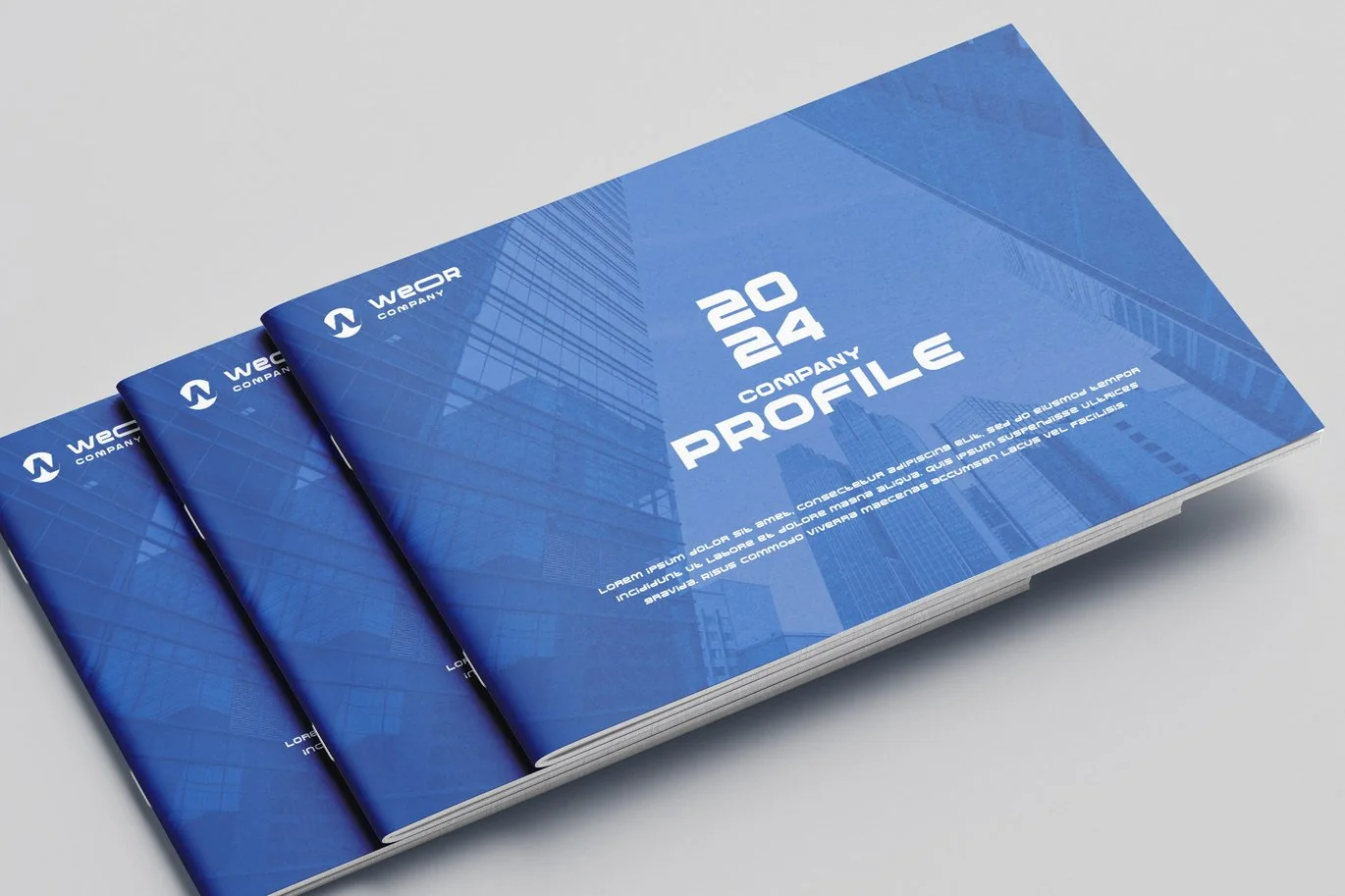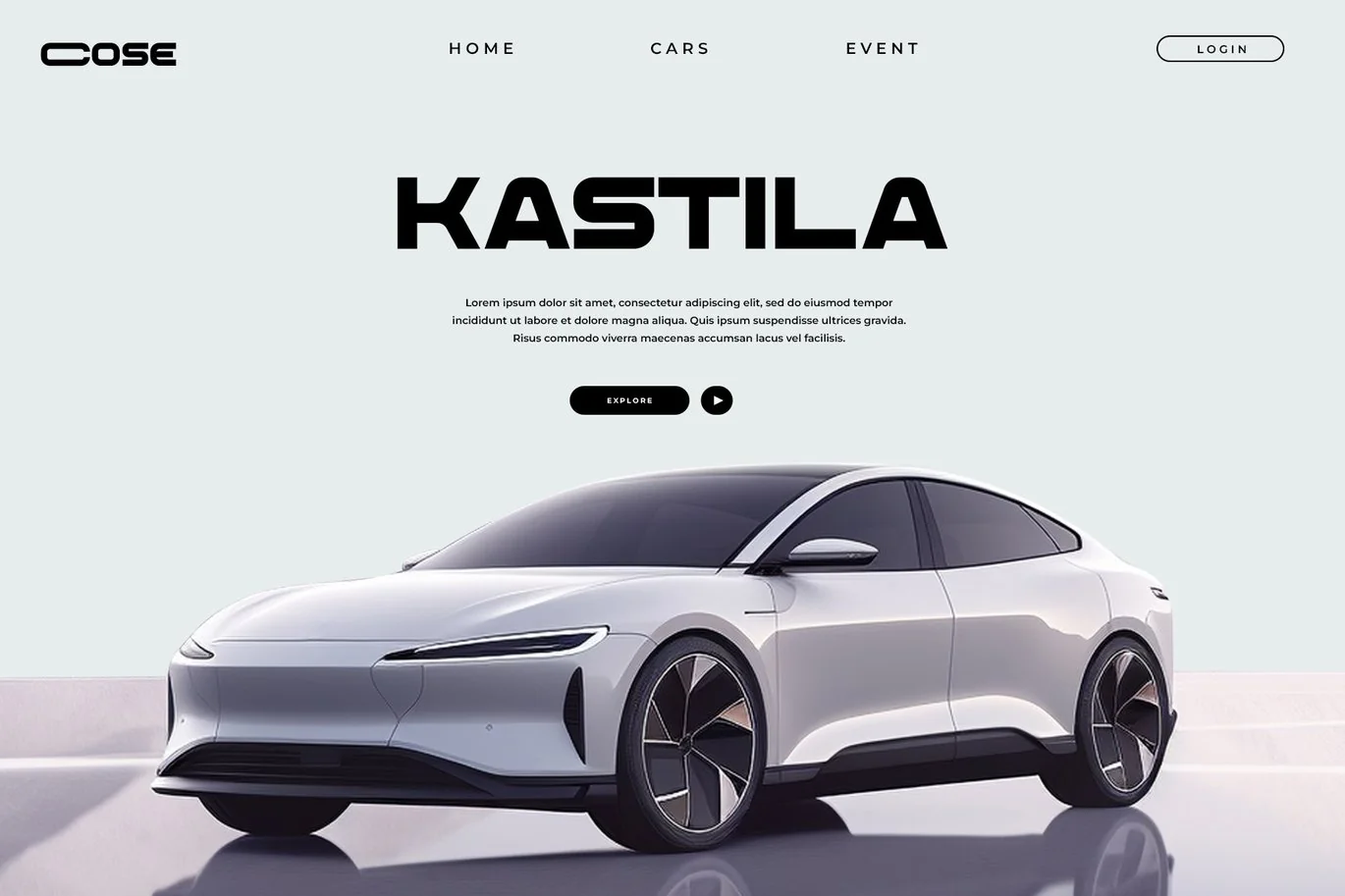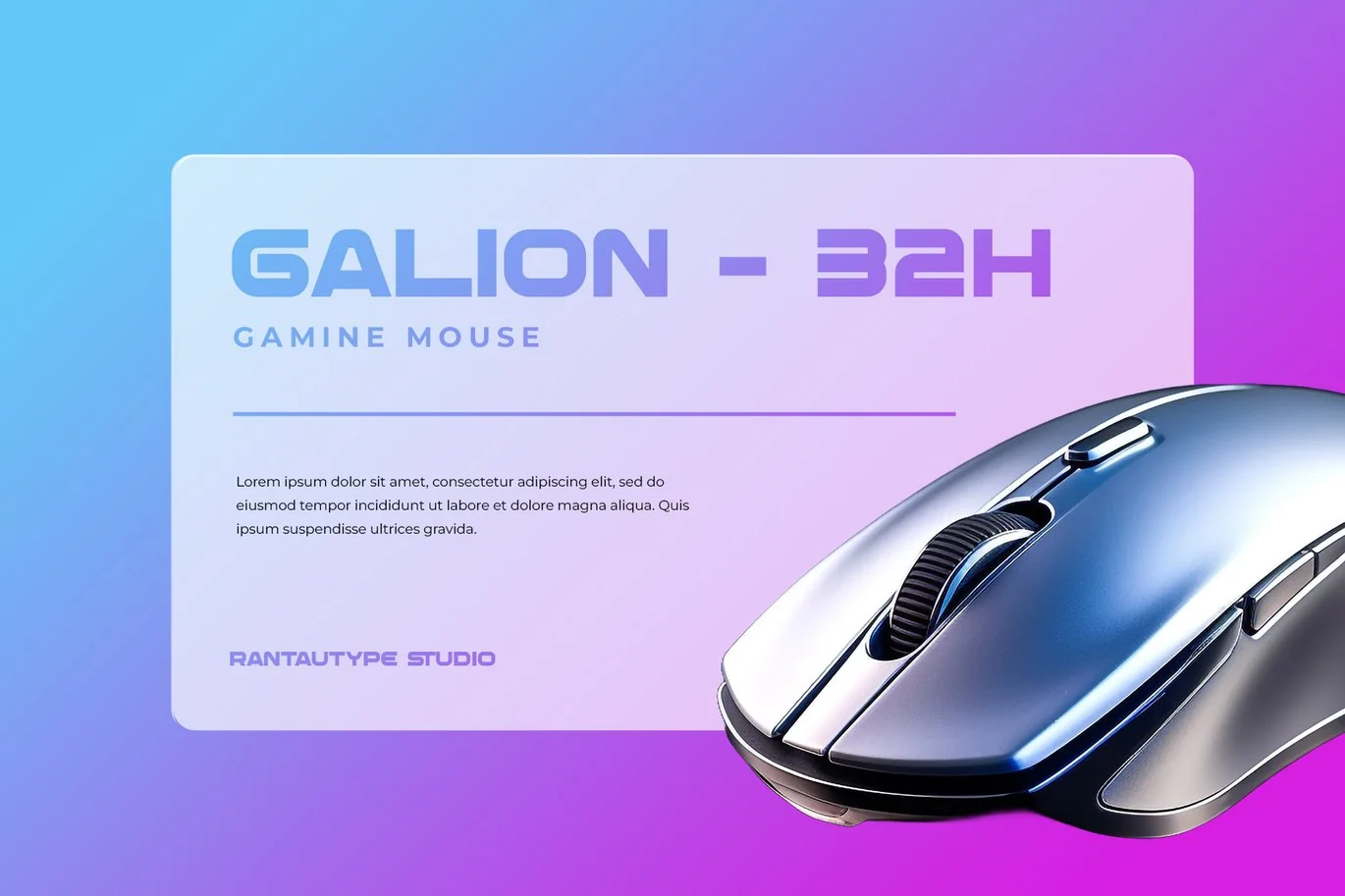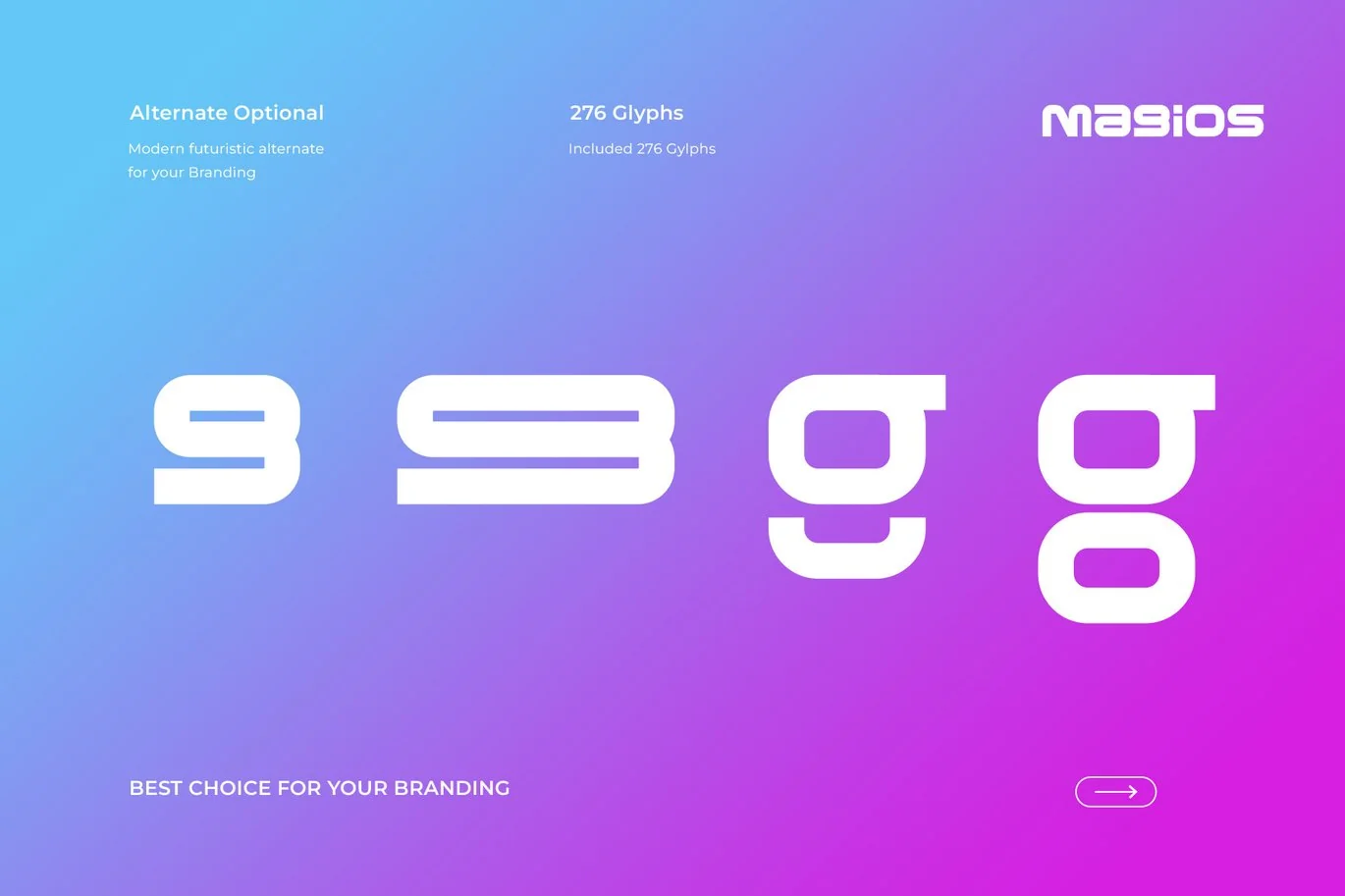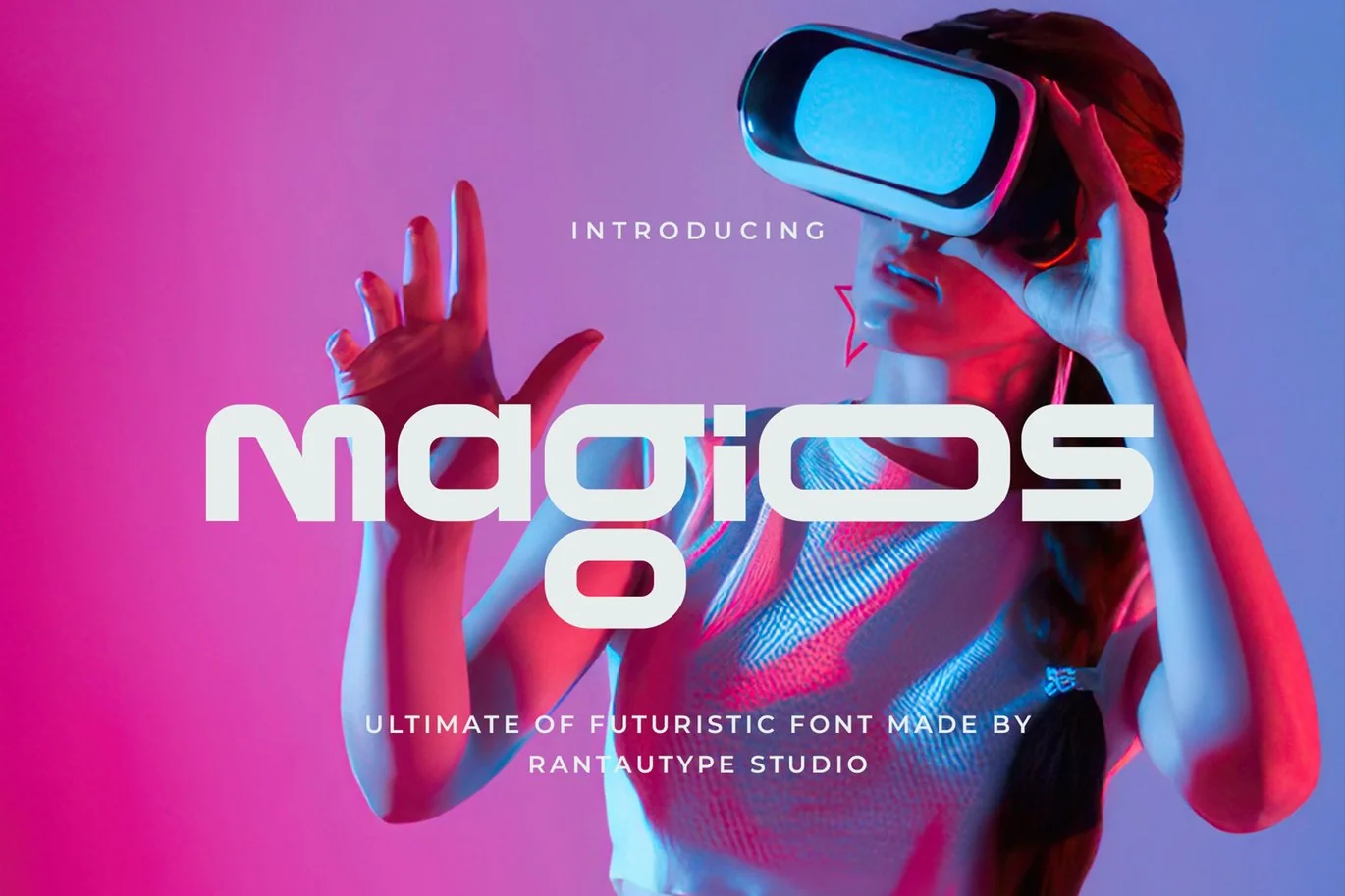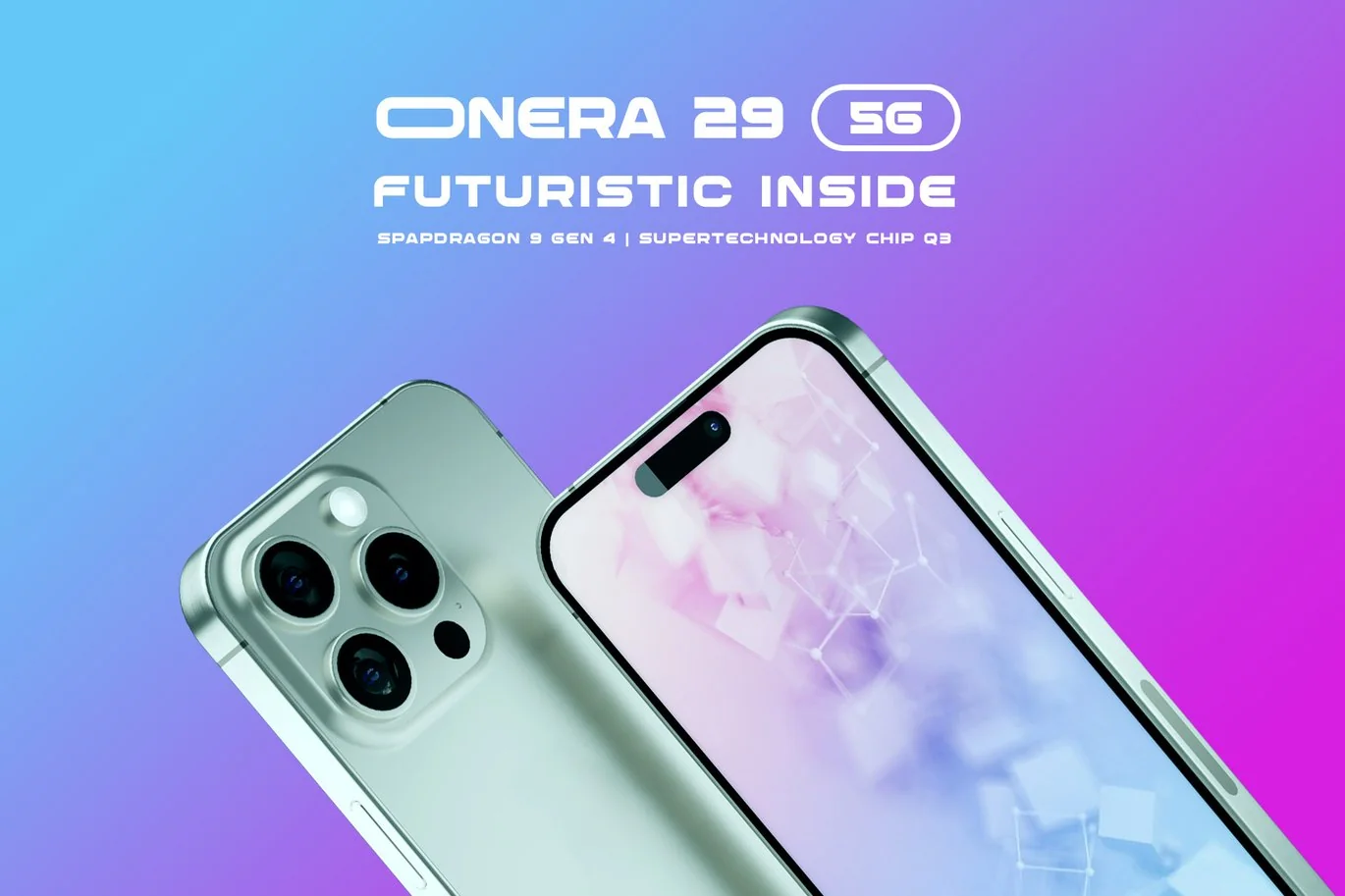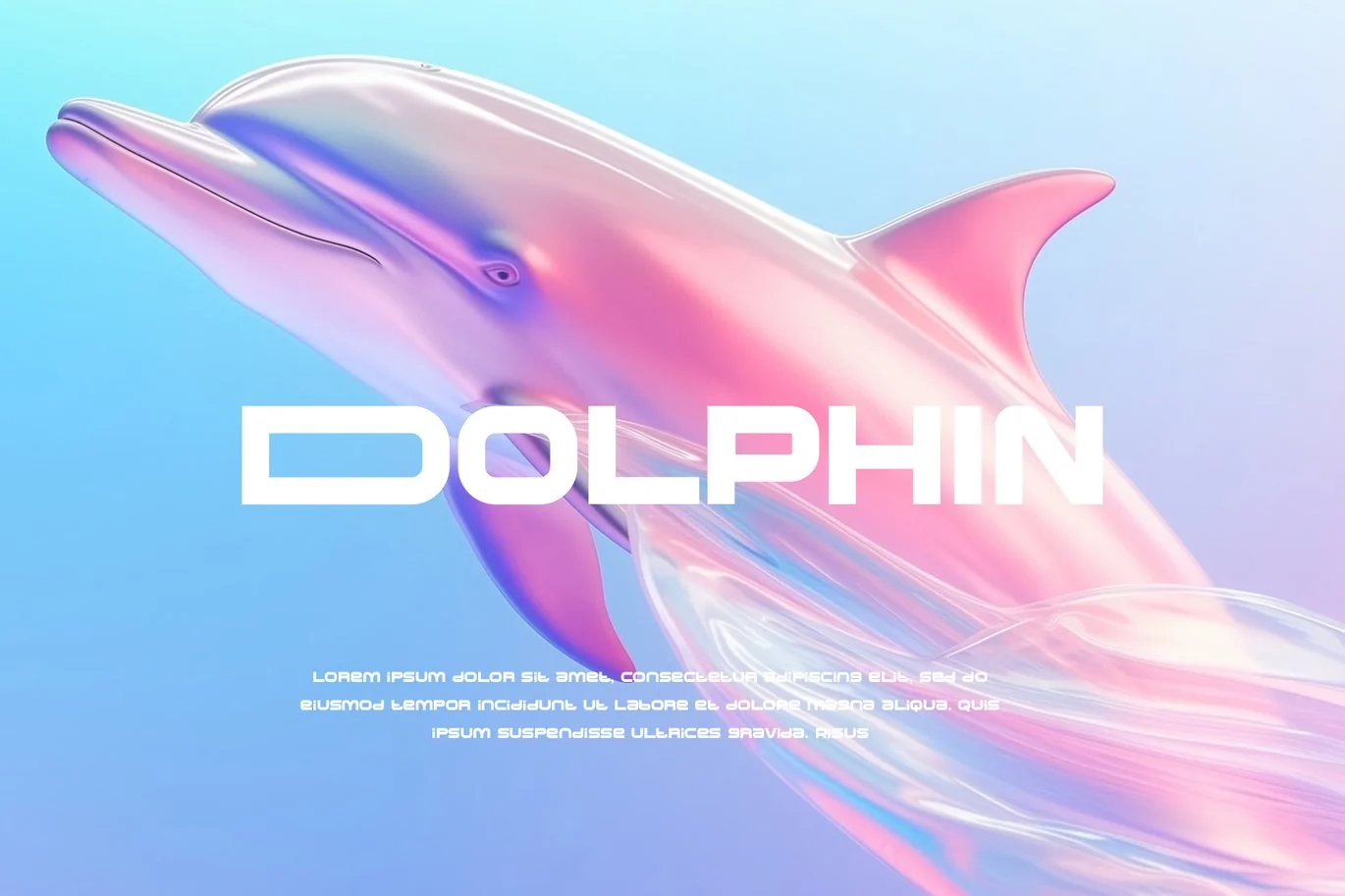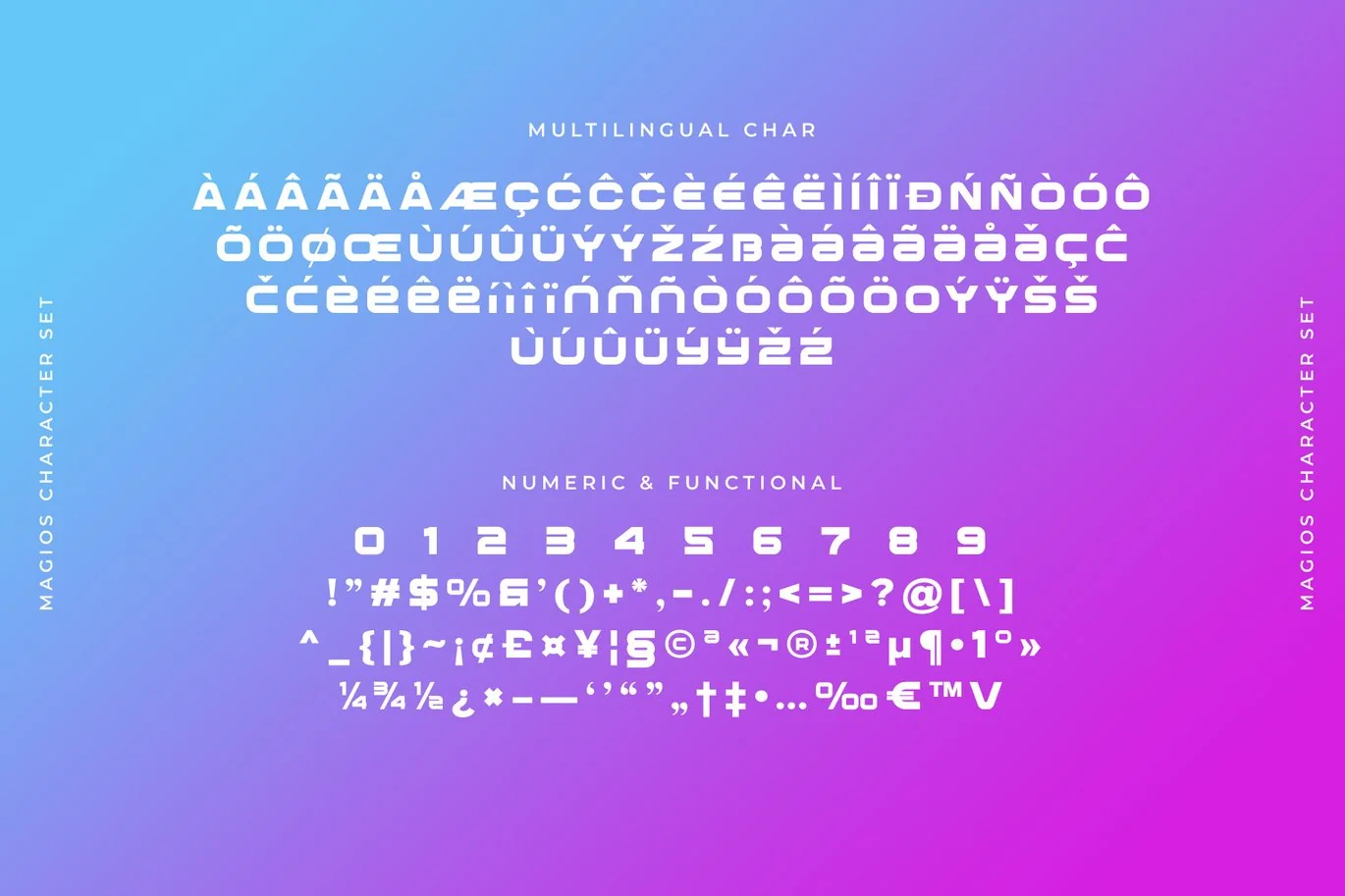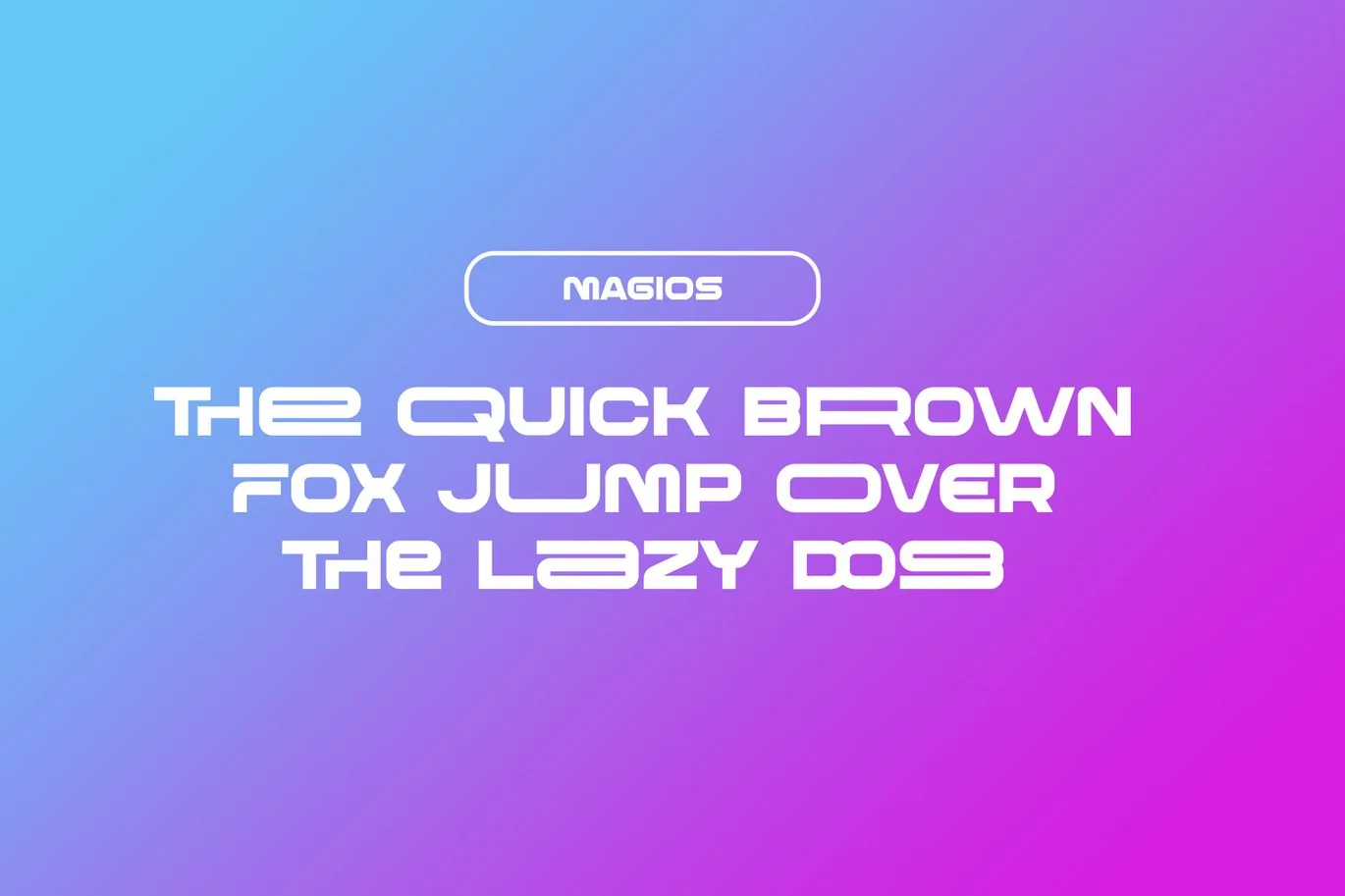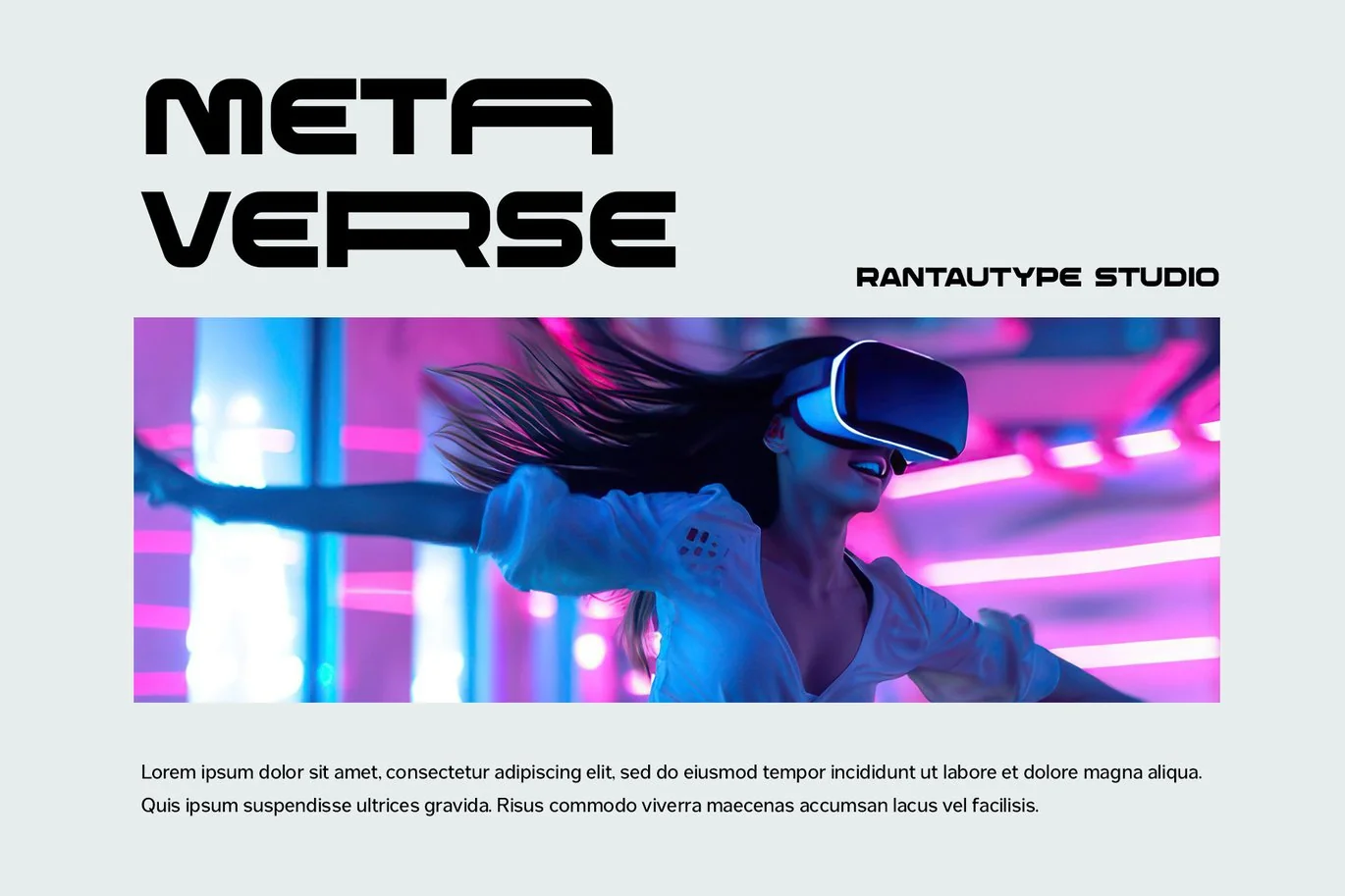
Magios Ultimate Futuristic Font
Magios is ultimate of futuristic font inspire by tool called virtual reality. This font take a technology visual design concept with rounded shape in some part make it elegant and minimalist. We love how ligature CO and OO look it modern and high tech. Magios come to support you to make design project about technology more stand out.
Magios is a perfectly choice for any creative endeavor, chic, lifestyle design such as logos, advertisements, stationery, branding project, display and magazine, invitation, corporate brand, product design, label, business project and many other project with technology touch.